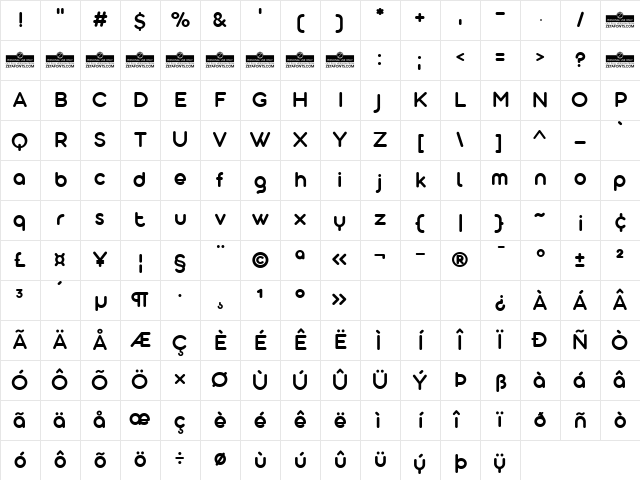
Complete Aristotelica Display Trial DmBd Regular glyph index. Displaying only characters natively supported by Aristotelica Display Trial DmBd Regular font.
Aristotelica Display Trial DmBd is built around its visual character rather than neutral utility - its distinctive forms are designed to make an impression at display sizes.
Font Pairing: Pair with a clean neutral sans-serif for body copy to let Aristotelica Display Trial DmBd's character lead without overwhelming the composition.
Pro Tip: Use Aristotelica Display Trial DmBd exclusively at display sizes - it was designed to be seen, not read at length. Let a neutral companion handle body copy.